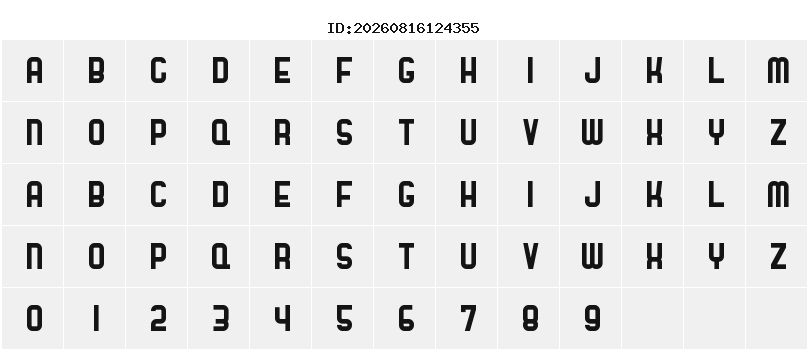
• Font Name: Stadium
• Font ID: Stadium Regular
• Full Font Name: Stadium Regular
• PostScript Name: StadiumRegular
• Character Count: 76
About Stadium.ttf
Stadium.ttf is a modern, elegant sans-serif font designed for ultimate readability and visual harmony. Perfect for branding, headlines, web design, and print materials.